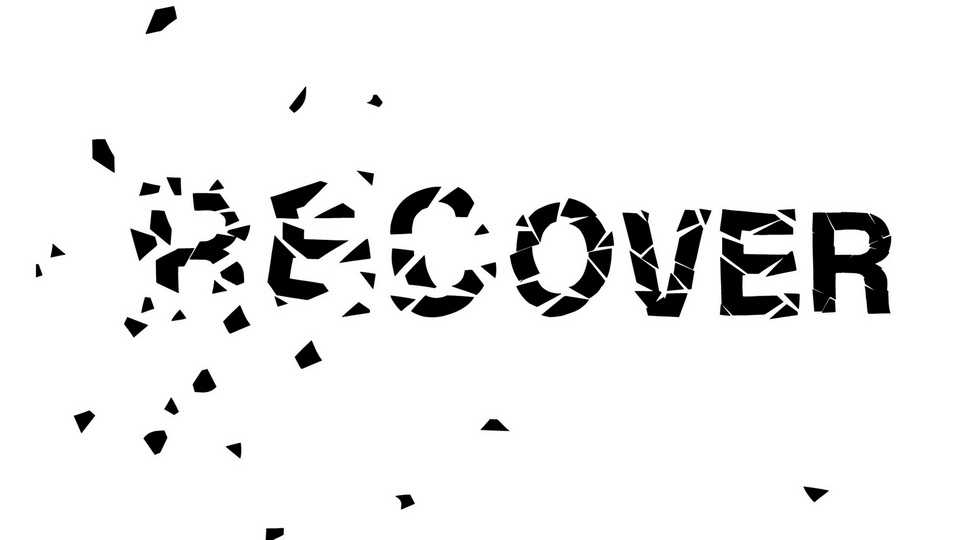
Mender Font Family › Fontesk – Download Grátis
Download Mender typeface, a unique display font family in tree styles. Mender created by hand cutting and rapidly slicing letter forms, then trying to piece them back together explores the fragility of design.
Designer: Mark Unger